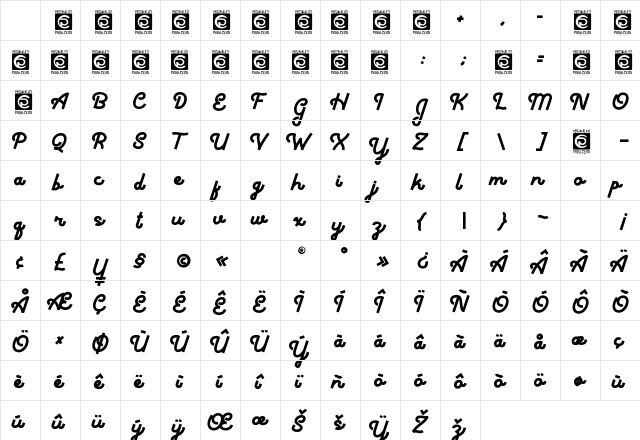
Thickline Personal Use is a composed and adaptable typeface that performs quietly and consistently across a wide range of design contexts.
Pro Tip: Use Thickline Personal Use in both headline and body roles to test its range before committing to a single application.